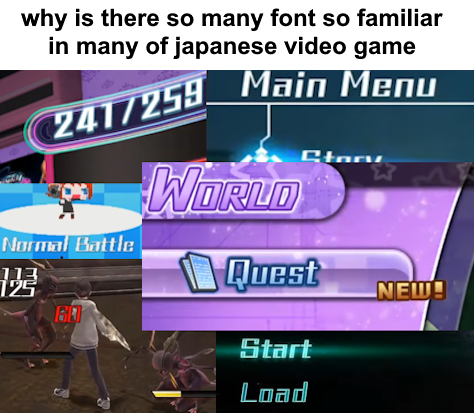
>why is there so many font so familiar in many of japanese video game
For me it is all the scifi minimalist numbers and text in modern final FANTASY.
It is just a sci-fi series at this point.
most japanese people suck at choosing latin fonts.
look at that shit for Dragon’s Dogma 2 for example.